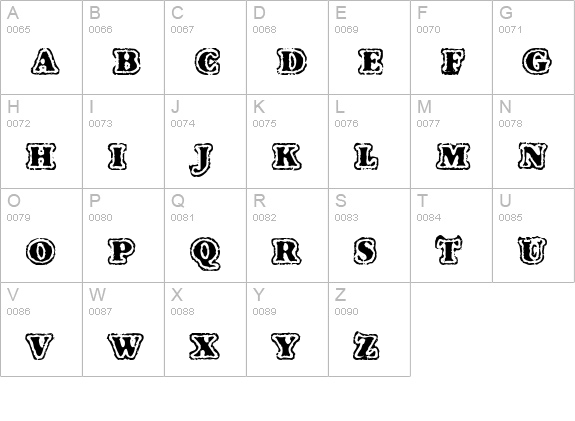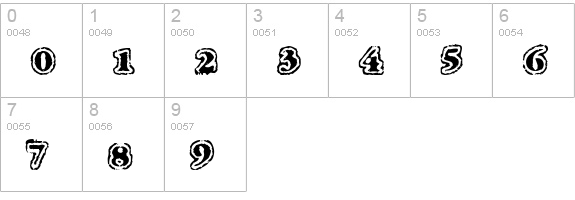
VTC FuzzyPunkySlippers Regular Font Details
VTC FuzzyPunkySlippers Regular is the standard, neutral variant in the VTC typeface family \xE2\x80\x94 well suited to general body text, paragraphs, and standard typographic work.
Introducing VTC FuzzyPunkySlippers Regular font, a delightful and playful typeface that will add a touch of whimsy to any design project. With its charmingly imperfect letterforms and fuzzy edges, this font exudes a sense of warmth and comfort, like slipping into your favorite pair of cozy slippers. VTC FuzzyPunkySlippers Regular font is perfect for a wide range of applications, from children's books and invitations to greeting cards and packaging. Its friendly and approachable nature makes it an excellent choice for projects aimed at capturing the attention and hearts of audiences of all ages. This font is not only visually appealing, but it also offers great versatility. Whether you're looking to create a lighthearted headline or a playful body of text, VTC FuzzyPunkySlippers Regular font has got you covered. Its carefully crafted letterforms ensure legibility while maintaining a unique and playful aesthetic. And the best part? VTC FuzzyPunkySlippers Regular font is freely available to download at FontsMarket.com. This means you can easily incorporate this delightful typeface into your projects without breaking the bank. So why wait? Add a touch of whimsy to your designs today with VTC FuzzyPunkySlippers Regular font!